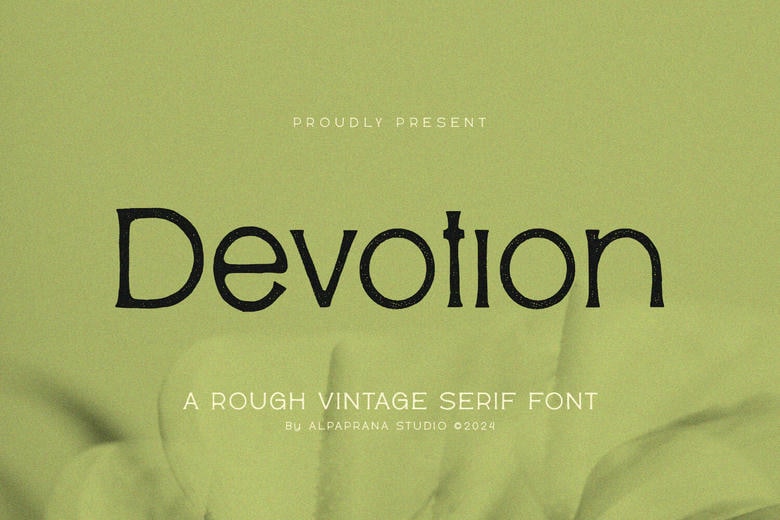
Devotion Rough Font
Devotion is a rough serif font with some unique type of fonts and feels traditionally. It will be best suitable for branding, logo designing, lettering, logotype, clothing, posters, magazines, packaging, posters, shopping bags, T-shirts, book covers, photography, special occasions & events, and other designing.
Devotion Rough Serif Font